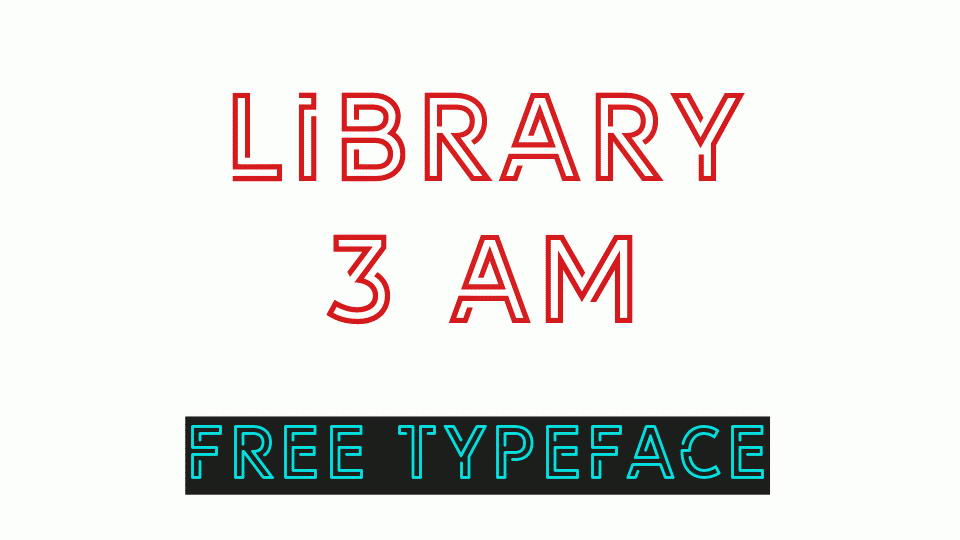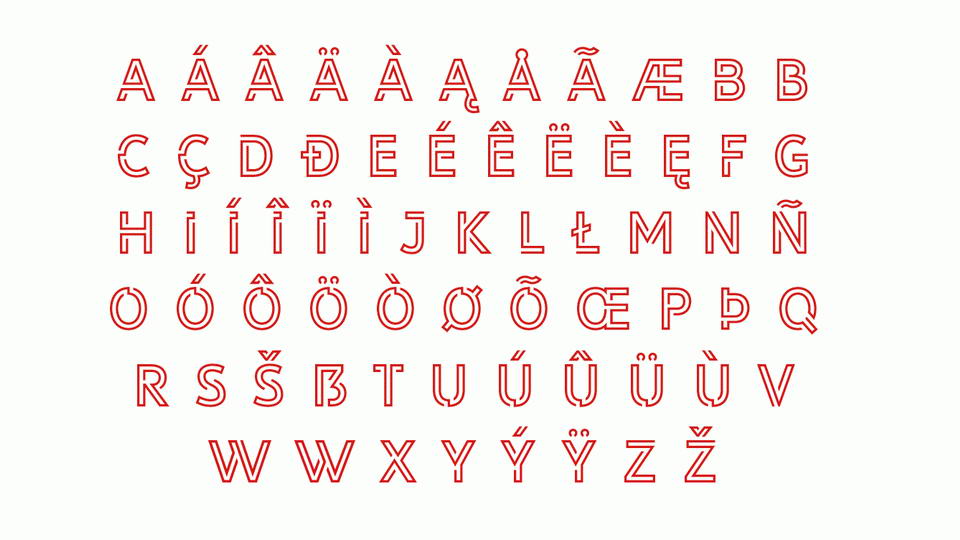
Library 3 am – free outlined display typeface. It comes with two styles – Regular and Soft, contains all caps letters, umbers and symbols, suppors multilanguage. Great for logos, posters, headlines, signage, neon styled titles, prints and much more.